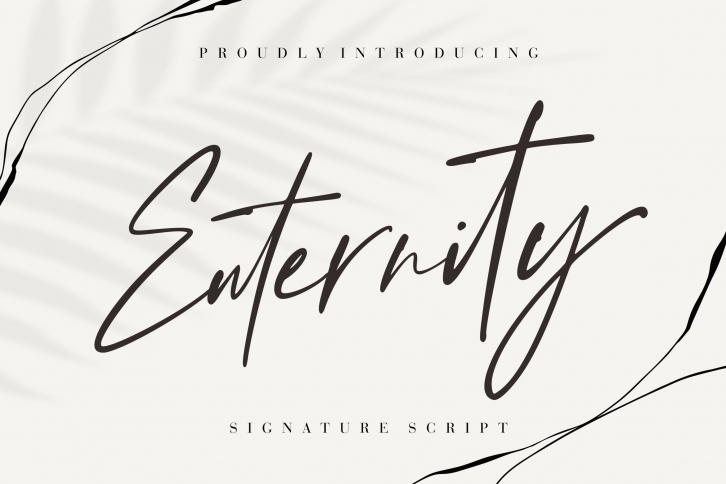
Enternity is a stylish signature font, this collection series will make your project looks awesome.
Enternity is perfect for branding projects, logo, wedding designs, social media posts, advertisements, product packaging, product designs, label, photography, watermark, invitation, stationery and any projects that need handwriting taste.
- Ton of glyphs
- Ligature & Alternate